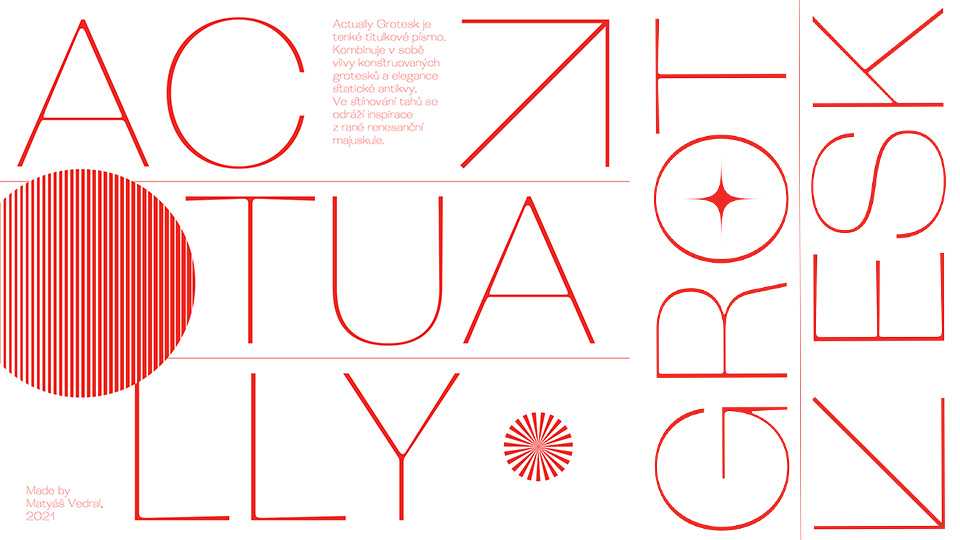
Download Actually Grotesk font, a contrast sans serif typeface, influenced by modern swiss grotesques and classical serif fonts. Actually Grotesk comes in Thin style, meant for large sizes.
Designer: Matyáš Vedral